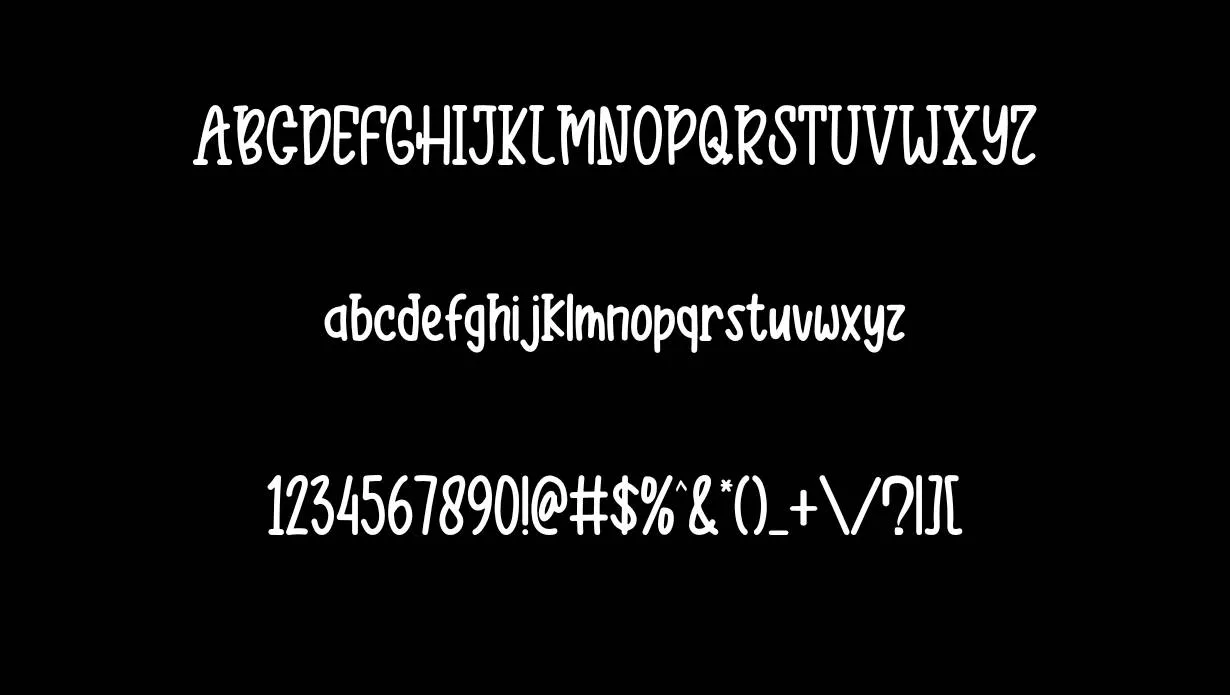
The Black Moon font embodies a mysterious and dark vibe, often chosen for designs related to the eerie or gothic themes. It’s frequently utilized in software like Adobe Photoshop, Illustrator, or InDesign to create chilling titles or logos
| Name | Black Moon Font |
| Designer | Rangkai Aksara |